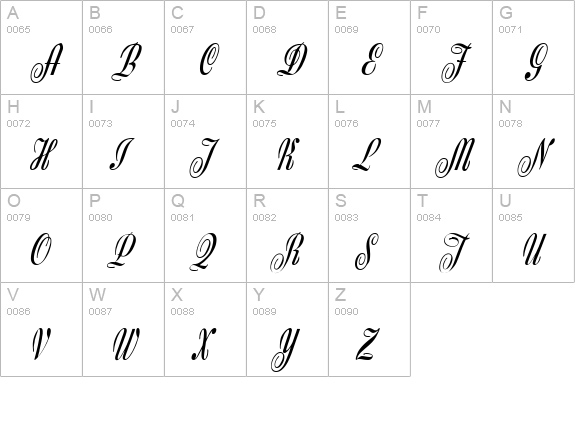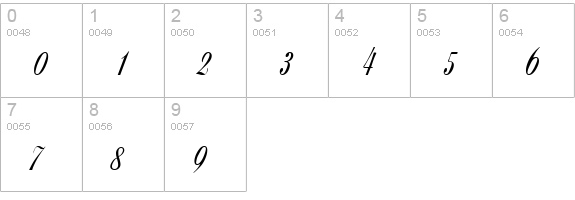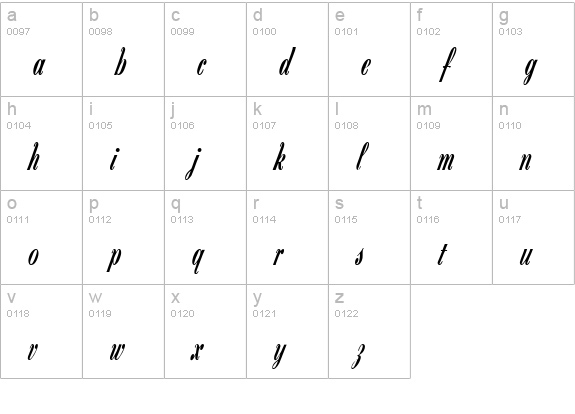
Zanzibar DB font is a stunning display font exuding elegance and sophistication. With its intricate details and unique design, this font is perfect for adding a touch of luxury to your projects. The ornate swirls and curves of Zanzibar DB font create a sense of opulence and grandeur, making it an ideal choice for invitations, branding, and other creative endeavors. What makes Zanzibar DB font even more appealing is that it is available for free download at FontsMarket.com. This means that you can easily access this exquisite font without any cost, allowing you to elevate your designs without breaking the bank. Don't miss out on the opportunity to enhance your projects with the beauty and charm of Zanzibar DB font - download it today and let your creativity shine!